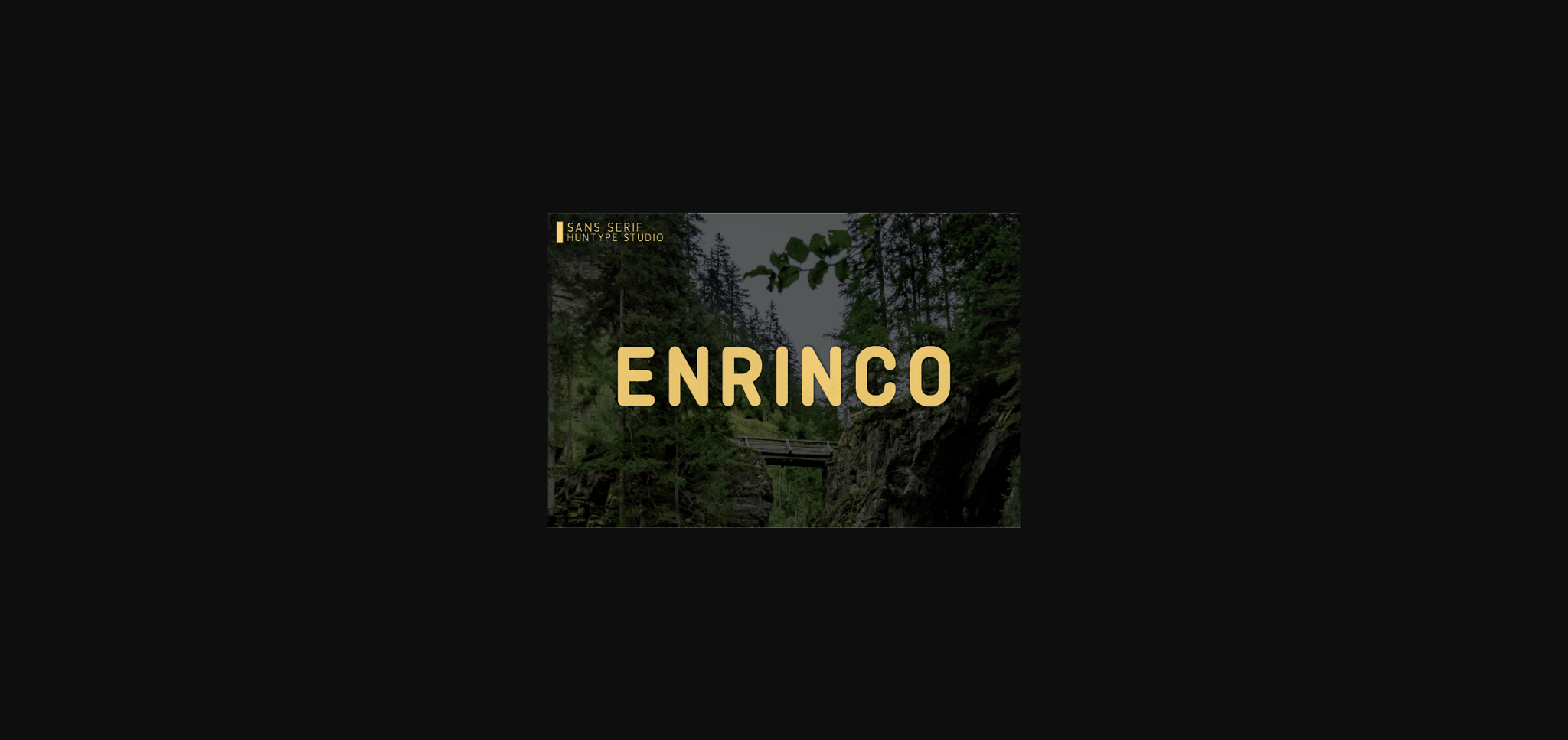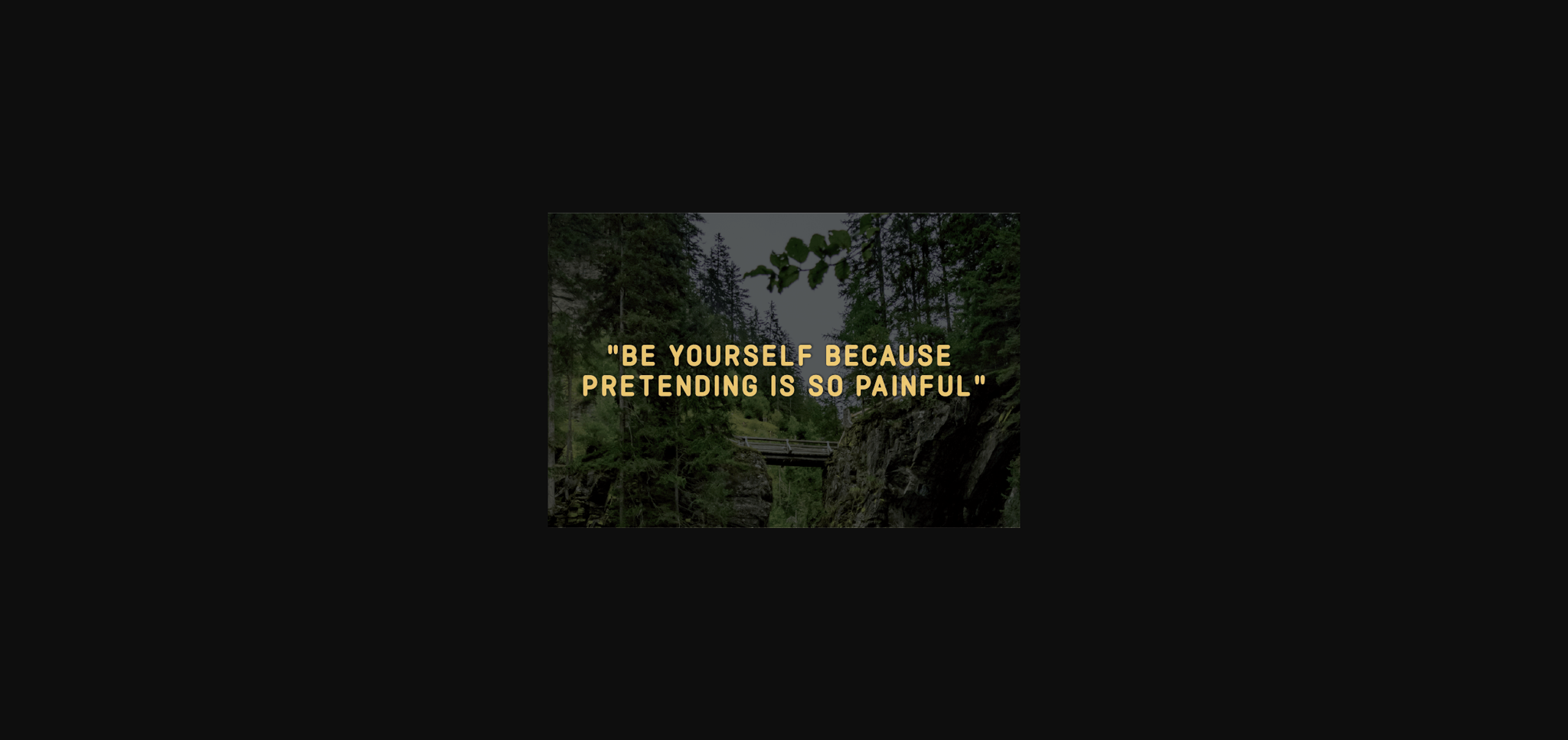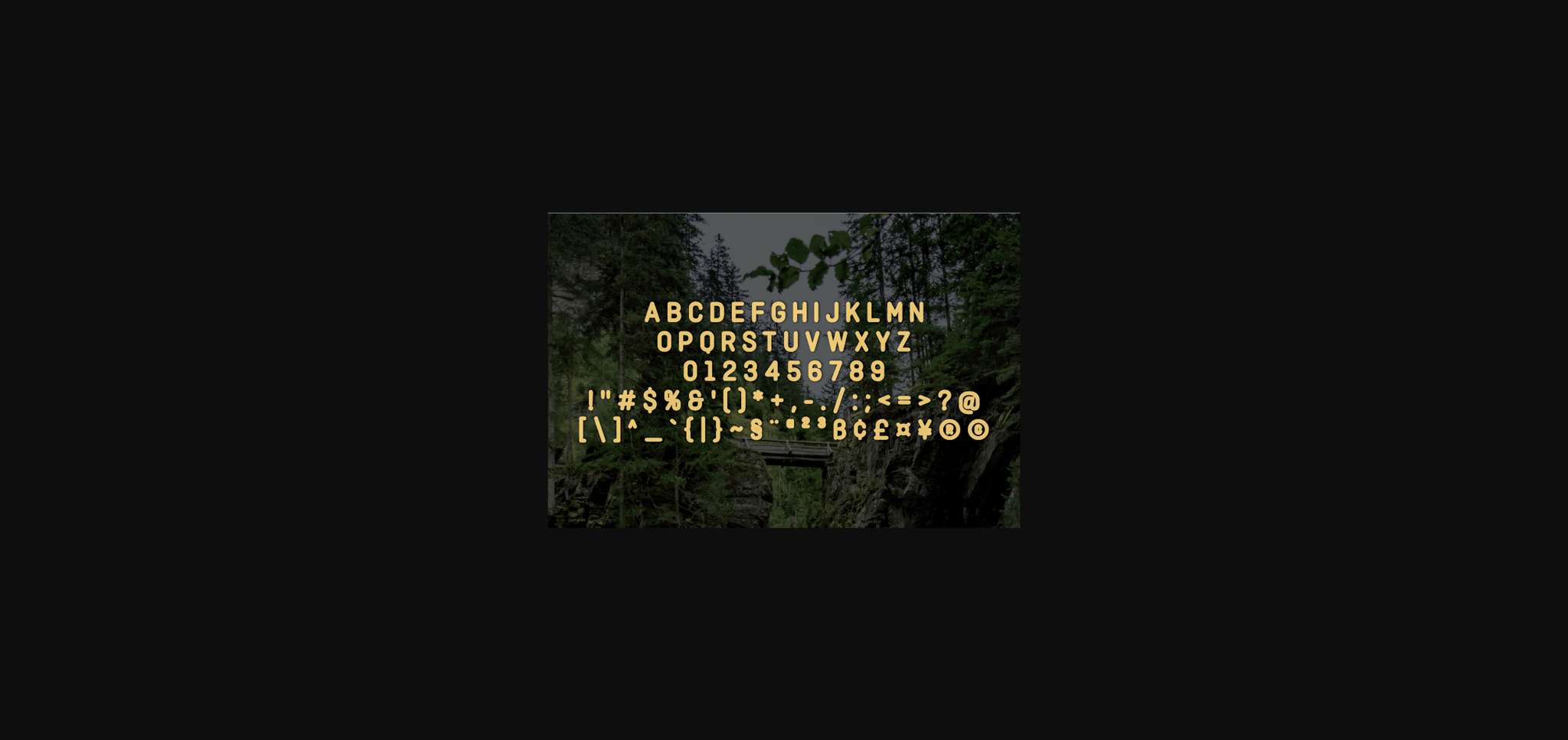
About Enrinco Font
Enrinco is a bold and authentic sans serif font, designed to complement every project you wish to create.
It is perfect for displays, headers, invitations, save the dates, weddings, and so much more!